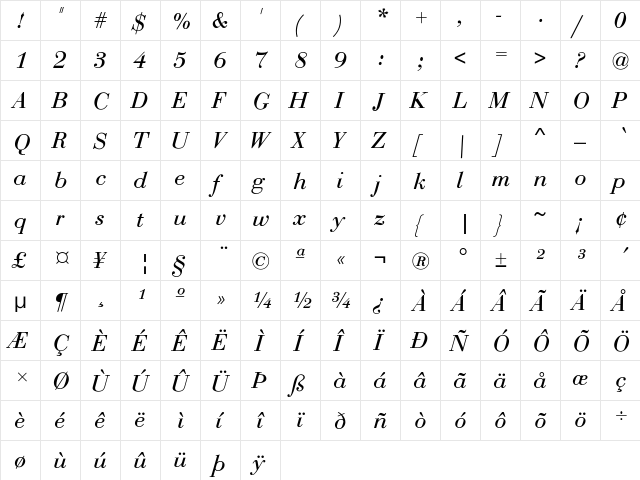
Rothni-Normal-Italic Regular
Design Context for Rothni-Normal-Italic Typeface
Rothni-Normal-Italic takes a measured approach to typography — its balanced proportions and neutral character make it a reliable workhorse for both digital and print work. Its italic angle brings a sense of urgency and motion to the letterforms.
Pro Tip: Use Rothni-Normal-Italic for emphasis, pull quotes, and subheadings where its slanted energy can add rhythm to the layout.